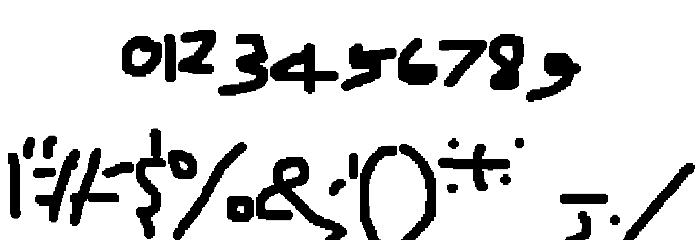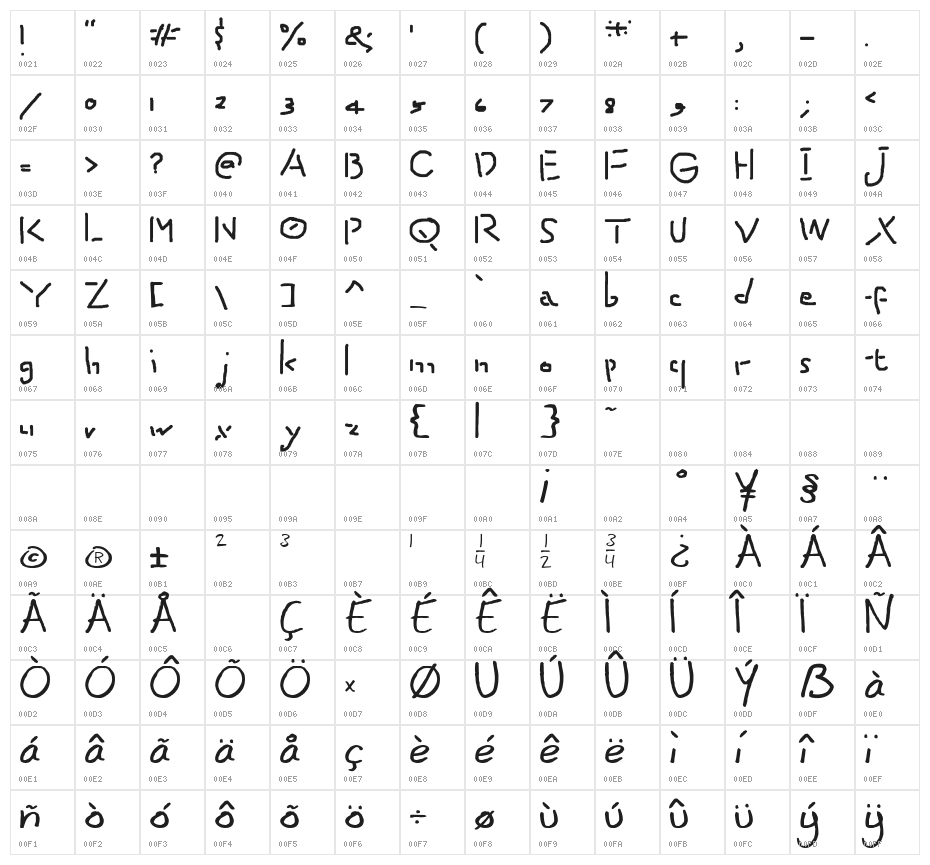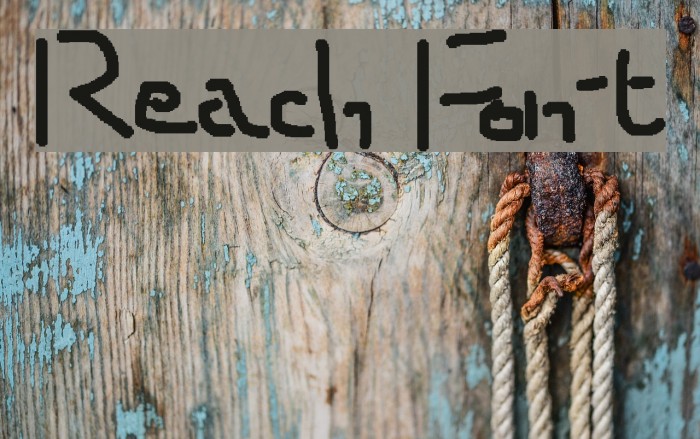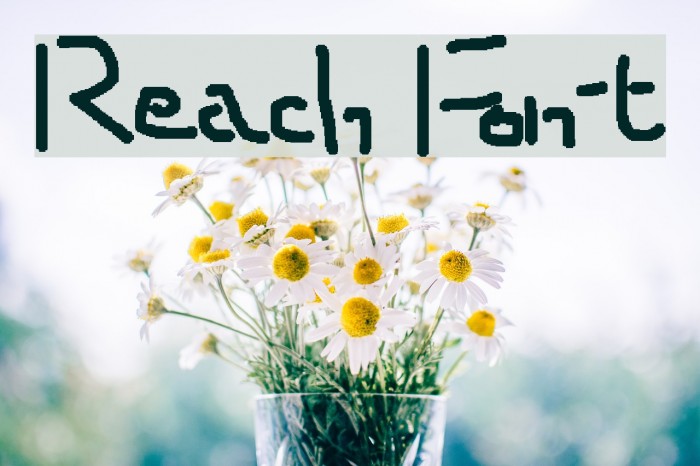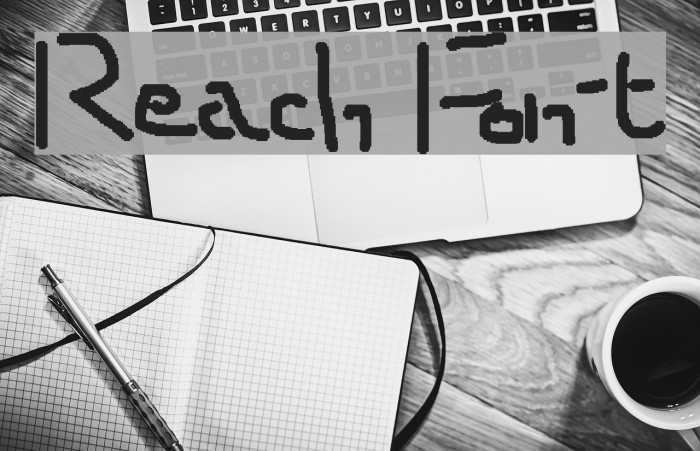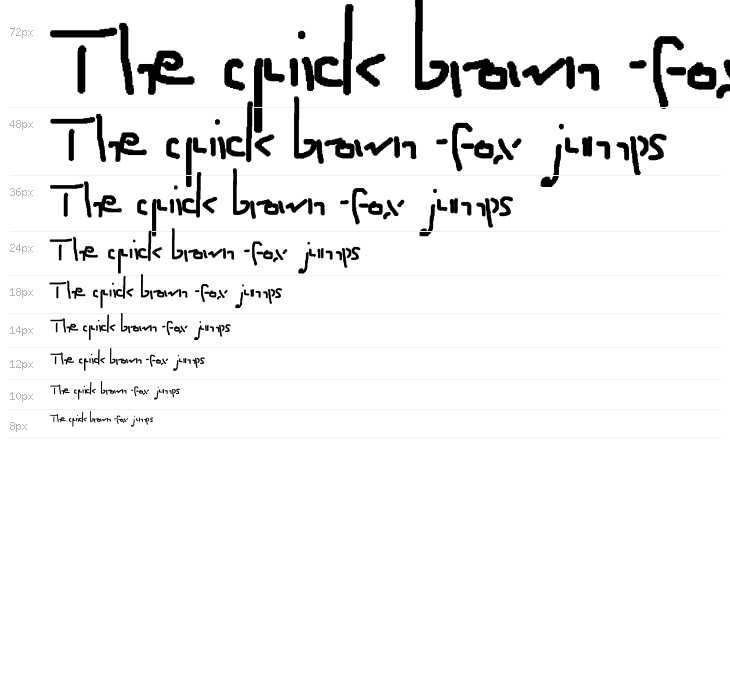
Reach Font
Reach Description
This font exhibits a playful and informal style, characterized by its irregular and hand-drawn appearance. The uppercase letters are distinct with varying line thickness, giving a casual and artistic feel. The lowercase letters maintain this whimsical style, with some characters featuring exaggerated loops and curves. Numbers and special characters follow the same playful design, ensuring consistency throughout. This font's unique and quirky aesthetic makes it ideal for creative projects that require a personal touch.
| Use Case | Logos, Posters, Creative projects |
| Proposed Projects | Ideal for children's books, greeting cards, artistic posters, and creative branding projects. |